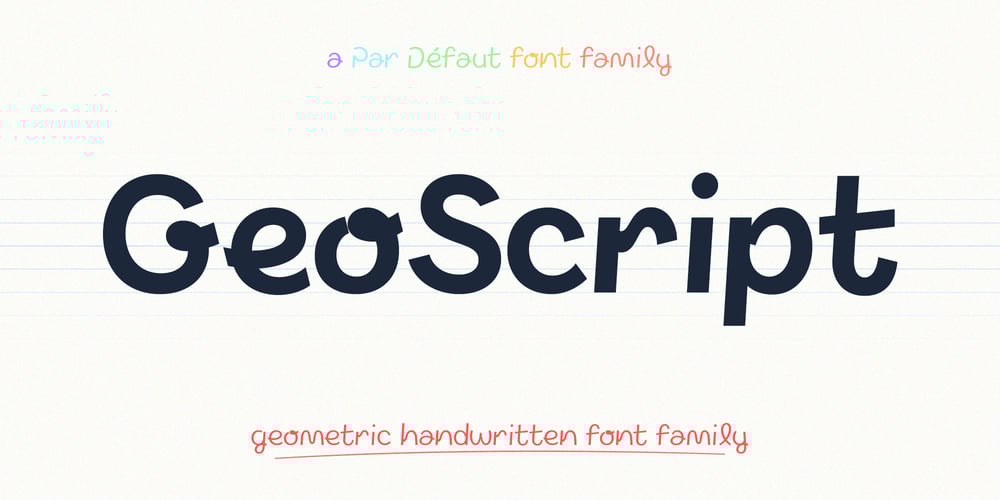
Geo Script
Geo Script font
Geo Script Font Family was designed by Nathanaël Dorange and published by Par Défaut. Geo Script contains 3 styles and family package options. GeoScript is a display font family including 3 weights : Light, Medium & Bold.The font takes up the codes of the handwritten fonts with those of the geometric.With more than 400 glyphs, GeoScript allows the use of a hundred languages, layout possibilities with the OpenType Features.